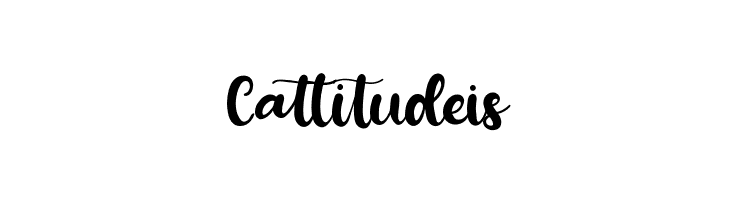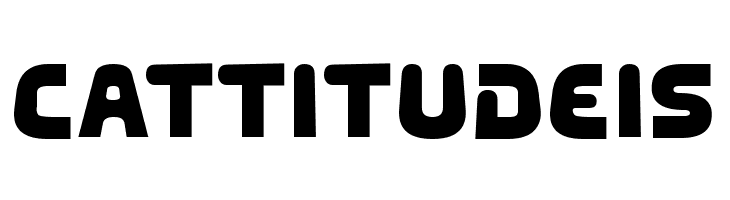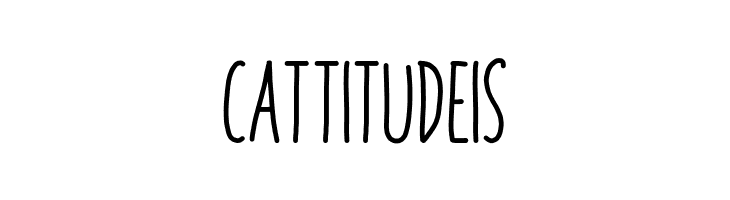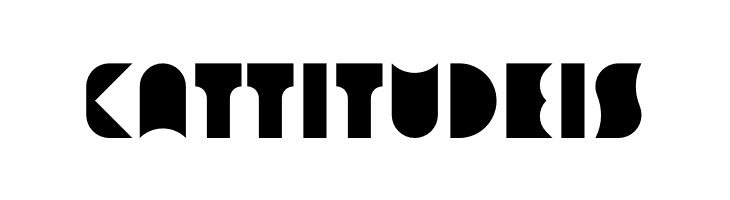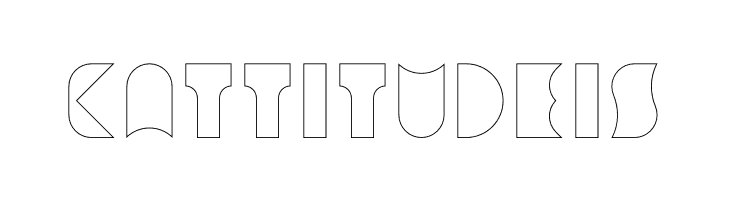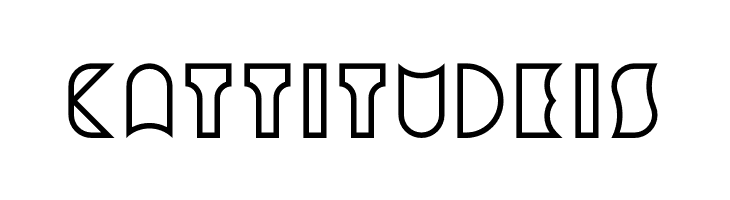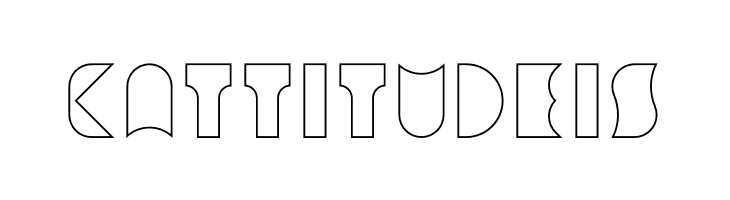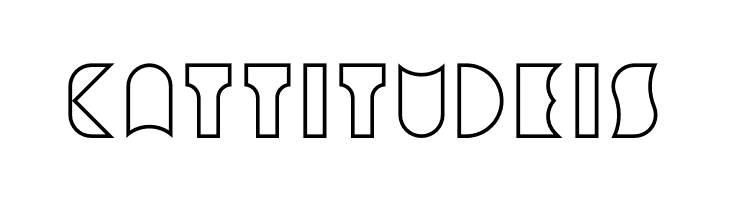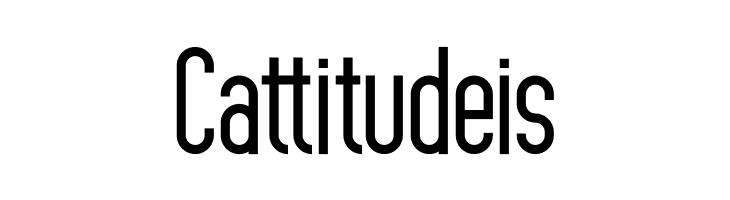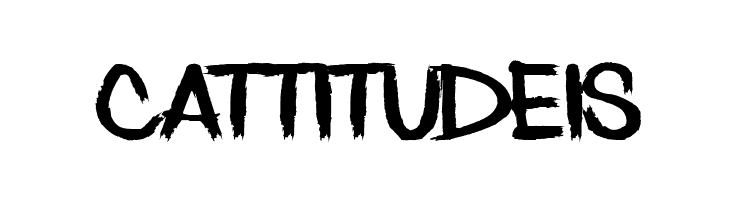
A bold, modern font with thick strokes and playful special characters.
A bold, modern font with wide, uppercase characters.
Hand-drawn ASL sign illustrations for each letter and number.
A bold, rounded font with a playful, outlined style.
A bold, gothic blackletter font with sharp, angular lines and ornate details.
Distressed, bold slab serif with a vintage Western feel.
A bold, decorative font with swirling, artistic characters.
An expressive, fluid script font with elegant, sweeping strokes.
Pictographic font based on pre-Columbian American motifs.
A pictographic display font with pre-Columbian American themed illustrations.
A pictorial, hand-drawn display font using household and vintage item illustrations.
A pixelated cursive font with a retro, digital aesthetic.
A decorative font with feather-like embellishments and a calligraphic style.
A whimsical, hand-drawn font with thin, elongated strokes and an artistic flair.
Ornate, pictorial font based on indigenous American symbols.
A playful handwritten font with smooth, fluid strokes and a casual style.
A sophisticated and elegant script font with flowing, cursive letterforms.
A sophisticated and elegant script font with fluid, flowing letterforms.
An elegant script font with graceful curves and intricate details.
A cursive, elegant font with smooth, flowing strokes and a sophisticated style.
A bold, stencil-style font with geometric shapes and distinct cutouts.
A bold, cursive font with high contrast and dramatic flourishes.
A playful handwritten font with tall, narrow letters and a casual style.
A bold, 3D, condensed font with outlined characters and a geometric style.
A bold, angular font with a dynamic slant and strong visual impact.
A bold, condensed font with a dynamic slant and tight spacing.
A bold, condensed font with a dynamic and modern style.
A bold, angular font with a dynamic, futuristic style.
A bold, condensed font with a dynamic and modern style.
A bold, futuristic font with geometric shapes and sharp angles.
A bold, outlined, and condensed font with a modern geometric style.
A sophisticated handwritten font with fluid, cursive strokes.
A modern serif font with bold, structured characters and elegant curves.
A whimsical handwritten font with playful loops and delicate strokes.